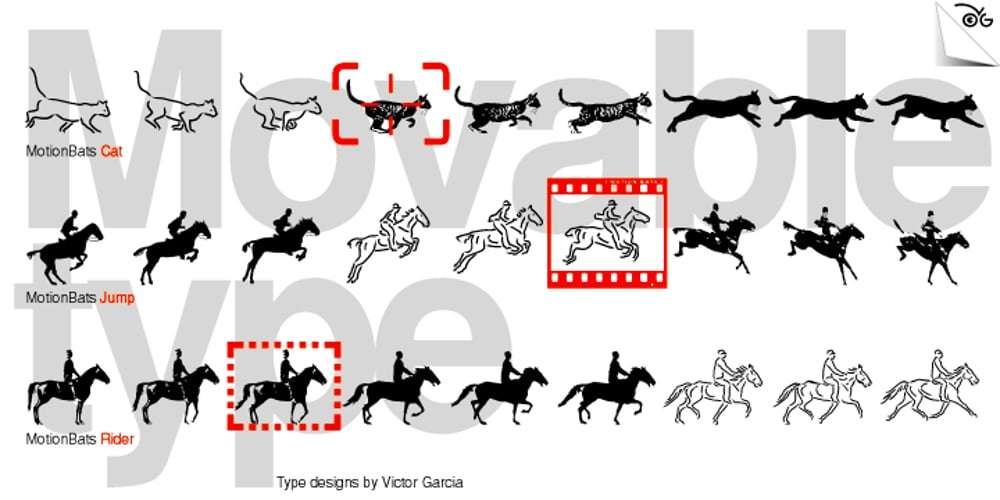
MotionBats Font Family was designed by Victor Garcia and published by Victor Garcia. MotionBats contains 9 styles and family package options. MotionBats are a sort of movable type otherwise. It is a symbol font type family integrated by 9 styles. The idea behind designs is to give to typographic pictograms –static for definition– the dimension of motion. In pursue of this spirit, each font shows a complete motion sequence. MotionBats are inspired on the photographic work of Eadweard J. Muybridge [1830-1904] –a talented multi-faceted Englishman– who worked in USA by the second half of the 19th century. In those early times of photography, he started –almost by chance– taking a comprehensive and impressive photographic sequential series of human and animal locomotion. This way, he placed himself more than a decade ahead from the beginning of cinematography. This type design family points to pay a humble and certainly incomplete homage to such a pioneering and amazing Muybridge’s work.